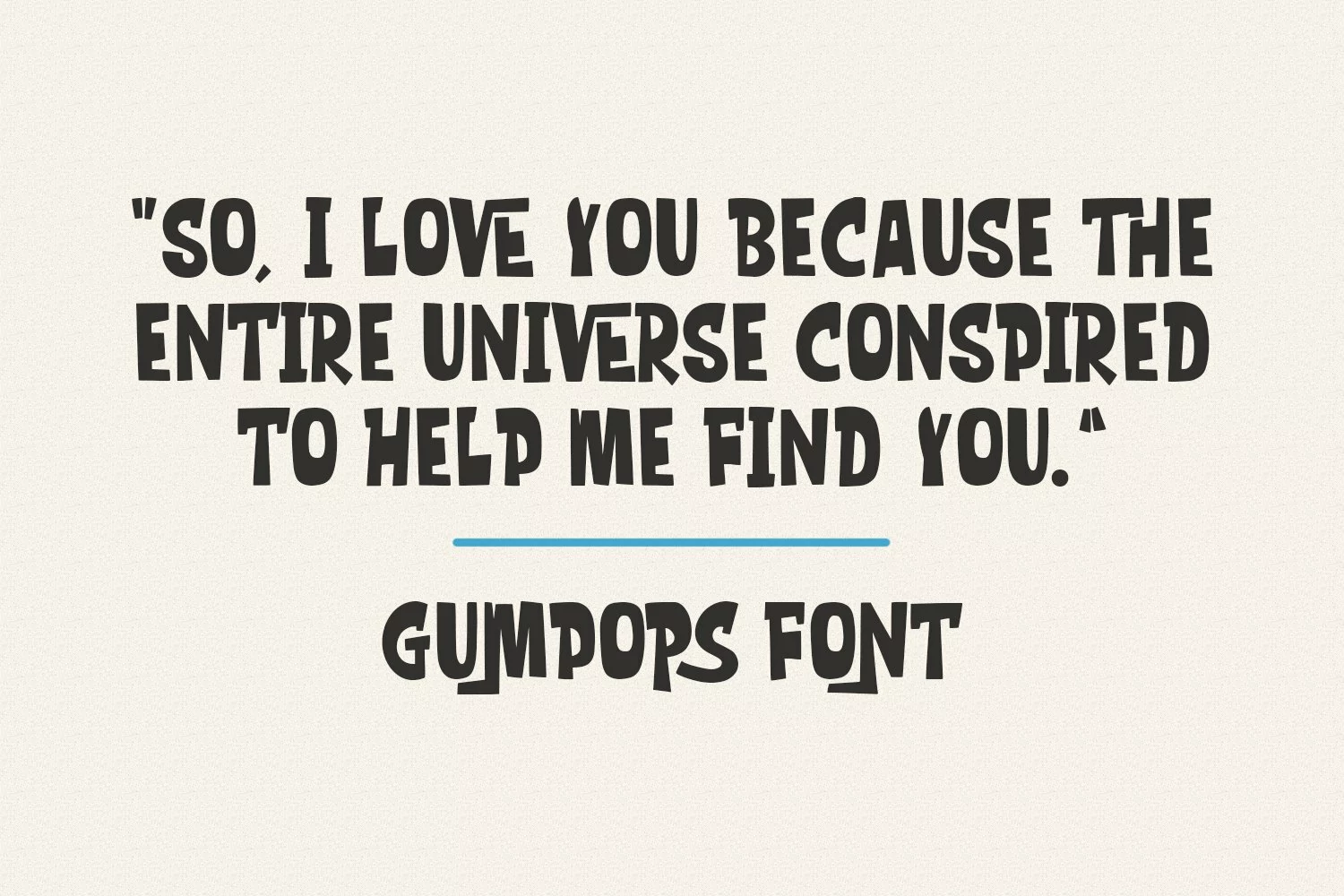
Gumpops is a cute handwritten display font. With bold sharp stroke, fun character. To give you an extra creative work. Gumpops font support multilingual more than 100+ language. This font is good for logo design, Social media, Movie Titles, Books Titles, a short text even a long text letter and good for your secondary text font with sans or serif. Make a stunning work with Gumpops font.
Gumpops